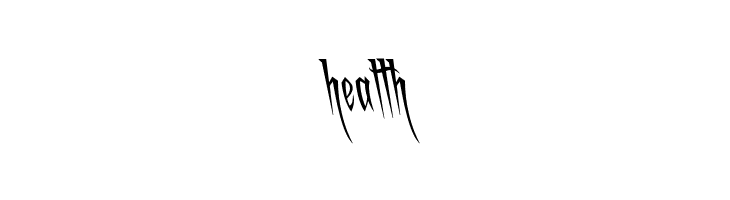
A Charming Font Expanded Font
A decorative and artistic font with intricate swirls and flourishes.
A Charming Font Font
An ornate and decorative font with intricate, flowing lines and dramatic flair.
A Charming Font Italic Font
An elegant, italic script font with intricate flourishes and dynamic style.
A Charming Font Superexpanded Font
An ornate and decorative font with intricate, flowing lines and elegant flourishes.
A Charming Font Leftleaning Font
An artistic, left-leaning font with gothic and whimsical elements.
A Charming Font Outline Font
An intricate and decorative outline font with artistic flair.